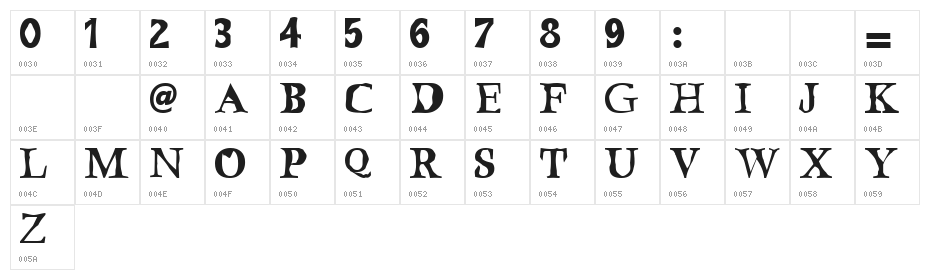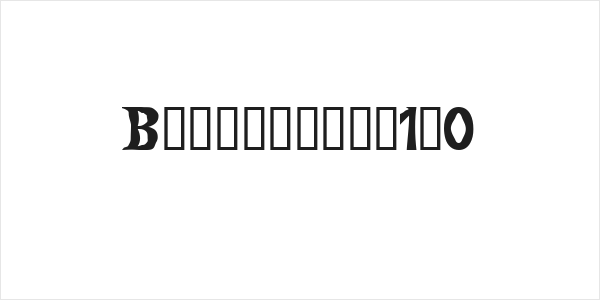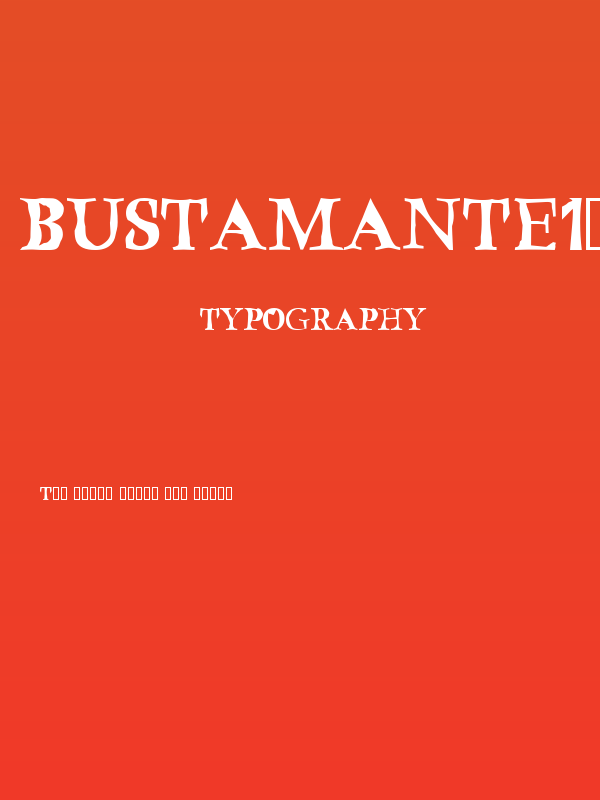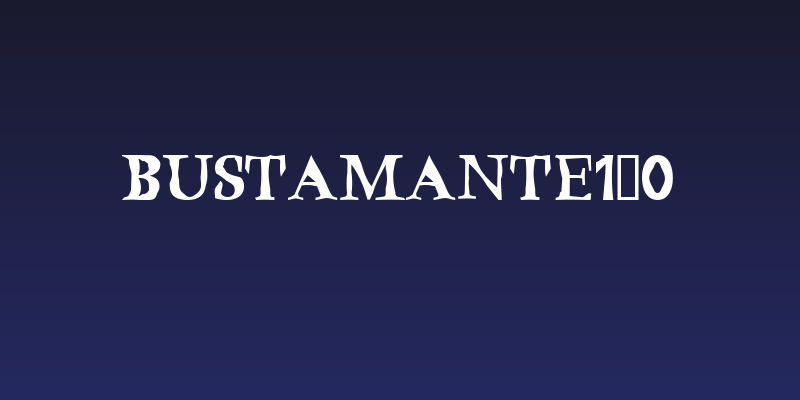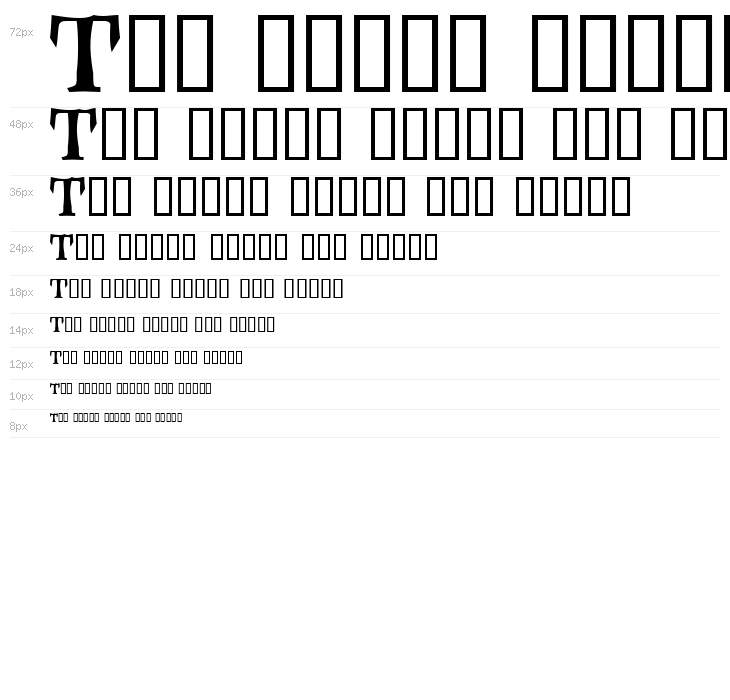
Bustamante1.0 Font
Bustamante1.0 Description
This font features a bold and dynamic style with a strong presence. The uppercase letters have a distinct, slightly irregular shape that gives them a hand-crafted appearance, while the numbers are bold and impactful. The strokes vary in thickness, adding a sense of movement and energy. The overall design is reminiscent of vintage or retro styles, making it suitable for projects that require a touch of nostalgia or a bold statement. The font's unique character shapes and bold weight make it stand out, ideal for attention-grabbing headlines or logos.
| Proposed Projects | Ideal for vintage-themed posters, logos, and headlines that require a bold statement. |